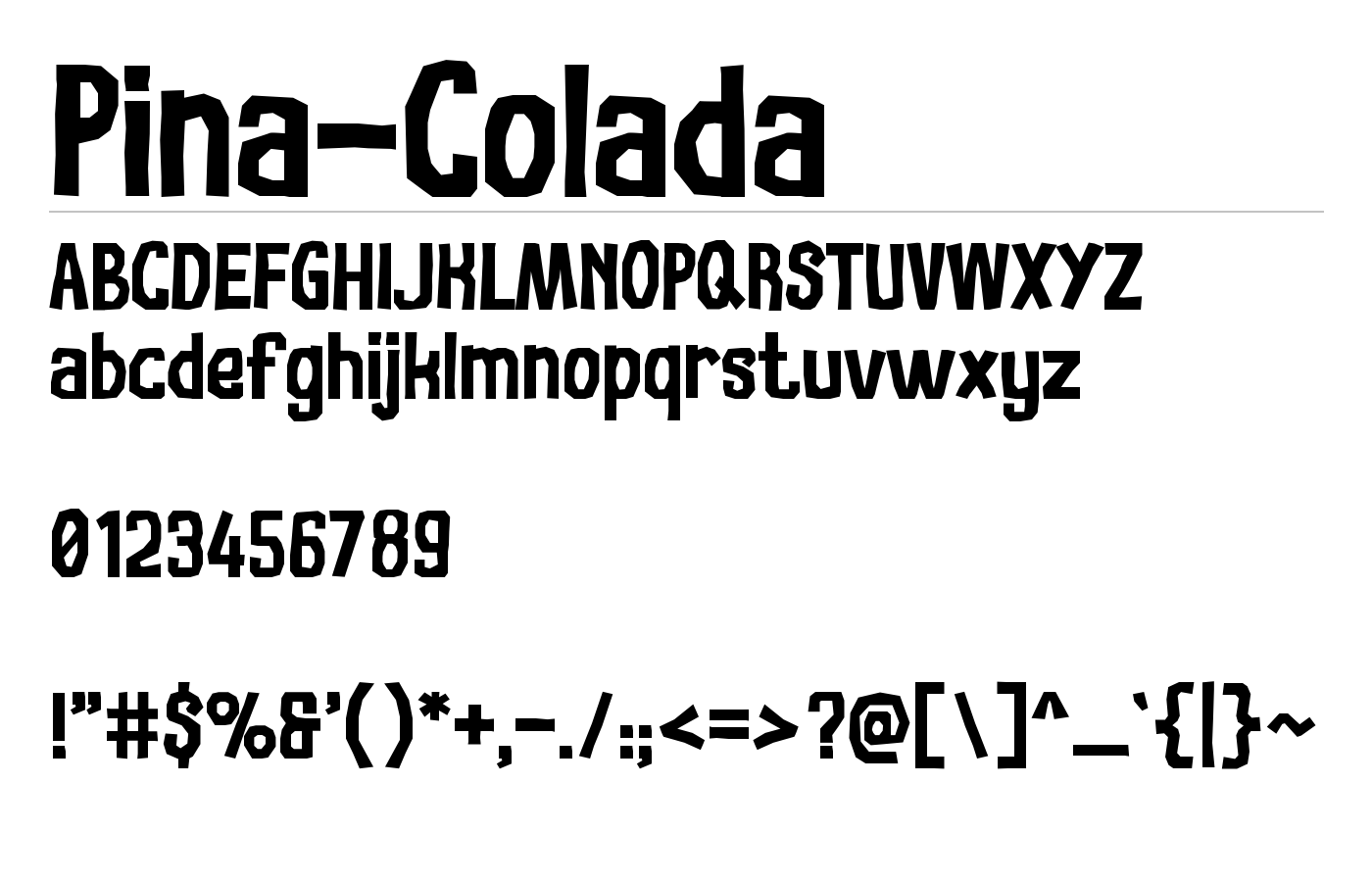
Pina Colada is a bold, condensed sans serif font with a quirky, hand-crafted feel achieved through its uneven, angular strokes and moderate contrast. Its high x-height and distinctive letter shapes give it a playful yet strong personality, making it ideal for eye-catching headlines, logos, and creative branding that seeks a fun and informal vibe. This font works well in designs that want to stand out with a unique, slightly rustic character while maintaining clear readability.
Pina Colada Font
About Pina Colada Font